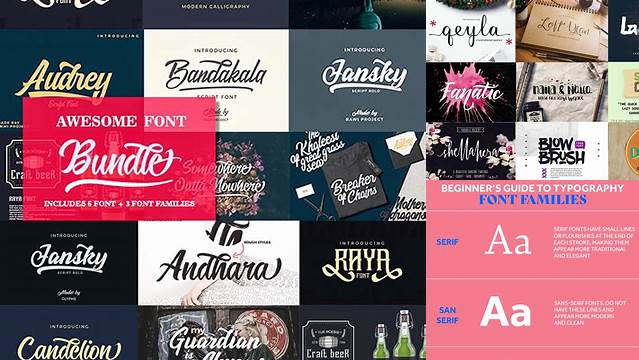
Free Fonts: Your Ultimate Guide To Awesome Typography
Hey everyone! If you're diving into the world of design, whether it's for your website, blog, or any creative project, you'll quickly realize the power of typography. Choosing the right font can seriously elevate your work, making it more readable, visually appealing, and on-brand. But, let's be real, sometimes those premium fonts come with a hefty price tag. That's where free fonts come in β your secret weapon for stunning design without breaking the bank. In this article, we'll explore everything you need to know about free fonts, including where to find them, how to use them, and some of the best options out there. Let's get started!
The World of Free Fonts: Your Gateway to Stunning Typography
Free fonts are essentially fonts that you can download and use without having to pay any licensing fees. This is a massive advantage, especially for small businesses, freelancers, and anyone on a budget. However, it's super important to understand the different types of licenses that govern free fonts because βfreeβ doesn't always mean the same thing. Some free fonts are completely open-source and can be used for personal and commercial projects alike, while others have more restrictive licenses that dictate how you can use them. Always check the license before downloading a font. Most websites that offer free fonts clearly state the license type, but it's always a good idea to double-check the terms to make sure you're using the font legally. This includes commercial use. It can save you some big headaches down the road.
One of the most significant benefits of using free fonts is the cost savings. Imagine being able to create professional-looking designs without having to spend hundreds of dollars on font licenses. This is a game-changer for startups and individuals who are just starting out. Plus, using free fonts allows you to experiment with different styles and find the perfect look for your project. You're not locked into a single font or style. There are a bunch of styles out there, from clean and modern sans-serifs to elegant and classic serifs, you can explore a huge range of options until you find the perfect match.
But how can you actually find these fantastic free fonts? Fortunately, there are tons of awesome resources available online. Google Fonts is arguably the most popular, offering a massive library of open-source fonts that are super easy to use. Other great resources include Font Squirrel, DaFont, and 1001 Fonts. These sites typically have a wide selection of fonts, and they often categorize them by style, popularity, and other helpful filters. When browsing these websites, pay attention to the font previews. Try typing out different words or phrases in the preview to see how the font looks in action. This will help you get a feel for its overall style and suitability for your project. Also, consider the character set of the font. Does it include the special characters and symbols you need? Does it support multiple languages if you're working on an international project? By paying attention to these details, you can find free fonts that not only look great but also meet the specific needs of your project. Let's not forget the impact of free fonts on your brand's identity. Typography plays a massive role in establishing your brand's personality and communicating your message effectively. The right font can help you convey professionalism, creativity, or any other desired impression. By using free fonts strategically, you can create a consistent and memorable brand identity without investing a ton of money upfront. It's a win-win!
Where to Find Free Fonts: Your Go-To Resources
Alright, now that you know the basics, let's dive into the best places to find those free fonts. As mentioned earlier, Google Fonts is the undisputed king of free fonts. It is a Google project and is super easy to use. You don't need to create an account to use the fonts, and all of them are open-source, meaning you can use them for personal and commercial projects. The site is also well-organized, with fonts categorized by style, language, and popularity. You can also easily download fonts in different weights and styles. This makes it easy to find a complete font family for your project.
Font Squirrel is another excellent resource, specifically designed to provide high-quality, free fonts. One of the things I love about Font Squirrel is that they do a great job of curating their font selection. This means you're more likely to find well-designed and visually appealing fonts. They also have a tool called the Font Identifier, which can help you identify fonts from images. It's super handy if you see a font you like and want to know what it is! DaFont is a huge database of free fonts, with a massive selection to choose from. It's a great place to find a wide variety of fonts, but be sure to check the licenses carefully, as some fonts may have restrictions on commercial use. 1001 Fonts is another popular site with a wide range of free fonts. They have a user-friendly interface and a variety of categories, which can help you narrow down your search. Just like DaFont, double-check the licensing terms for each font before using it. Always remember to check the license of each font before you download and use it. It's always best to be safe and ensure you're using the fonts legally. This information is typically found on the download page or in the font file itself.
When you're exploring these websites, keep a few things in mind to make the most of your search. Think about the overall style you're going for. Are you looking for a clean and modern font, a classic serif, or something more playful? Use the search filters on these sites to narrow down your options. Experiment with different fonts and preview them in context. Most sites allow you to type in your text and see how it looks in the font, which is a great way to visualize how it will appear in your project. Be creative and try different combinations to find a font that perfectly complements your message and design. Don't be afraid to try different styles and combine fonts to create a unique look.
Key Considerations When Choosing Free Fonts
Alright, before you go wild downloading every free font you see, here are a few important things to keep in mind when choosing fonts for your projects. First up, license. This is non-negotiable! Always, always check the font license. As we mentioned earlier, not all free fonts are created equal. Some fonts are available for both personal and commercial use, while others are only for personal projects. Make sure you understand the terms of the license before you start using a font to avoid any legal issues. Pay close attention to any restrictions. Are there limitations on how the font can be used? Can you embed the font in a website or app? Can you use the font for logos or branding? Knowing the licensing details will save you a lot of trouble.
Next, readability. This is super important, especially for body text. Make sure the font is easy to read, even at smaller sizes. Some fonts look great in large headlines but can be difficult to read in paragraphs of text. So when you're considering a font, test it out in different sizes and contexts to see how it performs. Does it have clear letterforms? Is there a good contrast between the letters and the background? Does it have a consistent weight across all its characters? A readable font ensures your message is easily understood. Consider your project's purpose. The font you choose should align with your project's overall style and message. A playful font might be perfect for a children's website but not appropriate for a legal document. Think about what kind of impression you want to make and choose a font that supports that. For example, a professional, clean font will be great for a corporate website, while a hand-drawn font might be great for a craft blog. Make sure that you keep in mind the consistency, the visual harmony, and the message you want to convey.
And finally, don't overload your design with too many different fonts. Using too many fonts can make your design look cluttered and unprofessional. Stick to a few fonts, typically two or three at most, and use them consistently throughout your project. This will help create a cohesive and visually appealing design. Also, consider the font families. Do the fonts you've chosen complement each other? Do they come in different weights and styles to allow for good contrast and visual interest? Do your fonts go well together?
Conclusion: Unleash Your Creativity with Free Fonts